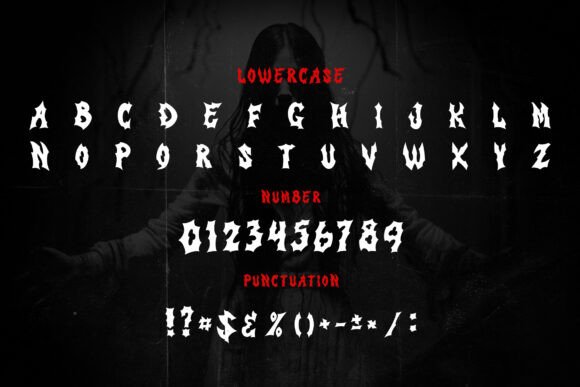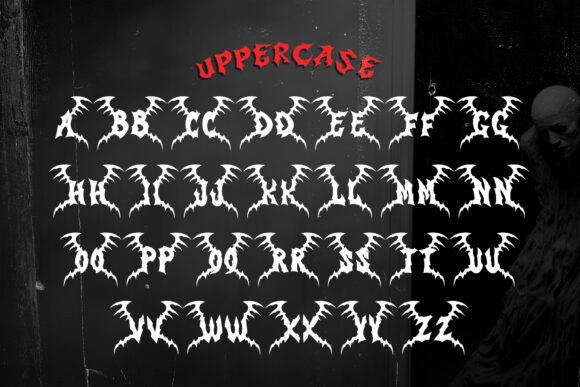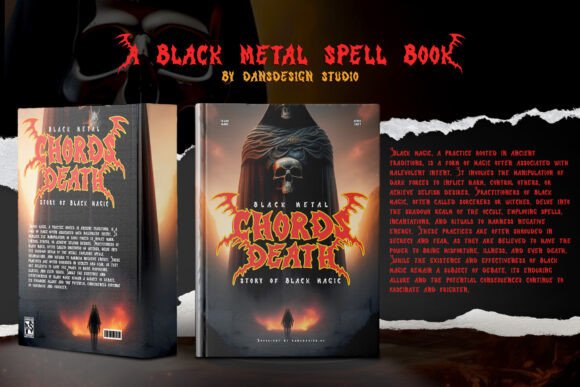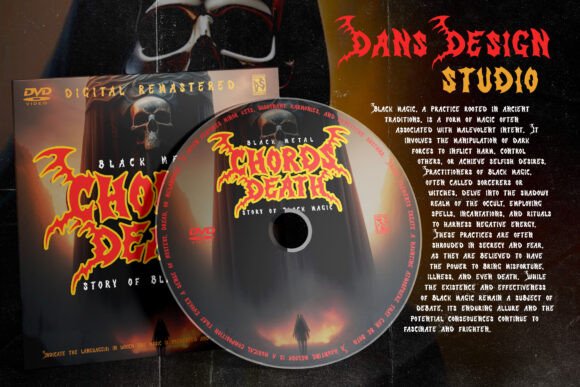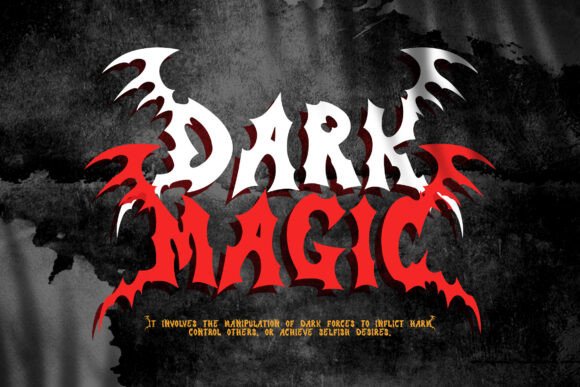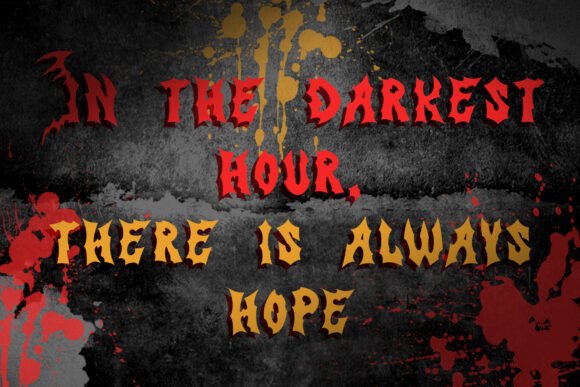
Unleash the Dark Side of Typography with Exquisite Font
In the realm of typography, few fonts can command attention quite like Exquisite, a sharp and sinister black metal display font that embodies the essence of dark energy. With its razor-edged serifs and extreme angularity, Exquisite is the perfect choice for designers and crafters seeking to infuse their projects with a sense of horror, chaos, and intensity.
The Essence of Exquisite Font
Exquisite font is a masterful blend of gothic essence and modern brutal edge, making it an ideal choice for a wide range of applications, from horror themes and heavy metal band branding to underground posters and other designs that require aggressive, chaotic intensity. Its unique aesthetic is characterized by sharp, jagged lines and a dark, foreboding presence that is sure to leave a lasting impression.
Design Features of Exquisite Font
So, what sets Exquisite font apart from other display fonts? Here are some of its key design features:
- Razor-edged serifs: Exquisite’s serifs are sharp and jagged, giving the font a menacing, aggressive appearance that is perfect for horror and heavy metal themes.
- Extreme angularity: The font’s extreme angularity adds to its dark, chaotic energy, making it ideal for designs that require a sense of intensity and rebellion.
- Gothic essence: Exquisite’s gothic roots are evident in its bold, dramatic lines and ornate details, which evoke a sense of mystery and foreboding.
- Modern brutal edge: The font’s modern brutal edge gives it a fresh, contemporary feel that sets it apart from more traditional gothic fonts.
Use Cases for Exquisite Font
Exquisite font is a versatile typeface that can be used in a wide range of applications, including:
- Horror themes: Exquisite’s dark, menacing aesthetic makes it perfect for horror movie posters, book covers, and other designs that require a sense of fear and foreboding.
- Heavy metal band branding: The font’s aggressive, chaotic energy makes it an ideal choice for heavy metal band logos, posters, and other branding materials.
- Underground posters: Exquisite’s bold, eye-catching aesthetic makes it perfect for underground posters, flyers, and other designs that require a sense of rebellion and intensity.
- Dark art and illustration: The font’s unique aesthetic makes it a great choice for dark art and illustration projects that require a sense of mystery and foreboding.
Tips for Using Exquisite Font
To get the most out of Exquisite font, here are some tips to keep in mind:
- Use it sparingly: Exquisite’s bold, aggressive aesthetic can be overwhelming if overused. Use it sparingly to create maximum impact.
- Pair it with contrasting fonts: Exquisite’s dark, menacing aesthetic can be contrasted with lighter, more elegant fonts to create a sense of visual interest.
- Experiment with colors: Exquisite’s dark energy can be enhanced with bold, vibrant colors that add to its sense of intensity and rebellion.
Exquisite font is a powerful, versatile typeface that is perfect for designers and crafters seeking to infuse their projects with a sense of horror, chaos, and intensity. With its razor-edged serifs, extreme angularity, and gothic essence, Exquisite is sure to command attention and leave a lasting impression. Whether you’re designing a horror movie poster, a heavy metal band logo, or an underground poster, Exquisite font is the perfect choice for adding a touch of dark energy to your project.